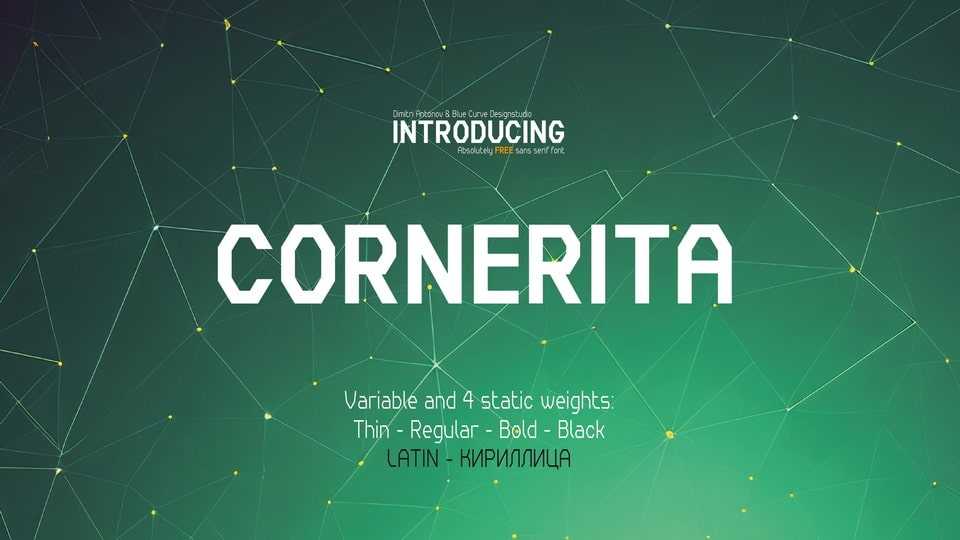
Download Cornerita font, a modern grotesque inspired by technology and construction. Built from geometric forms and sharp straight lines Cornerita font is perfect for logotypes, sports branding, posters, apparel design, magazine headlines, labels and so much more.
Designer: Dimitri Antonov